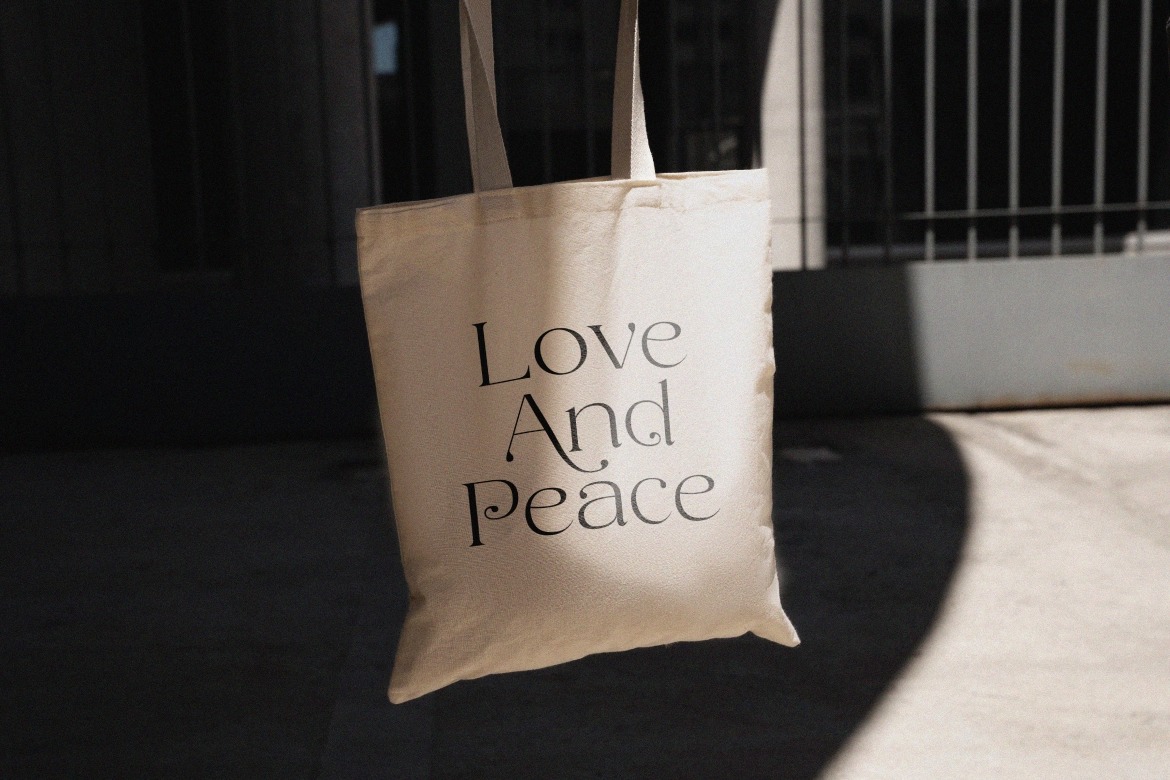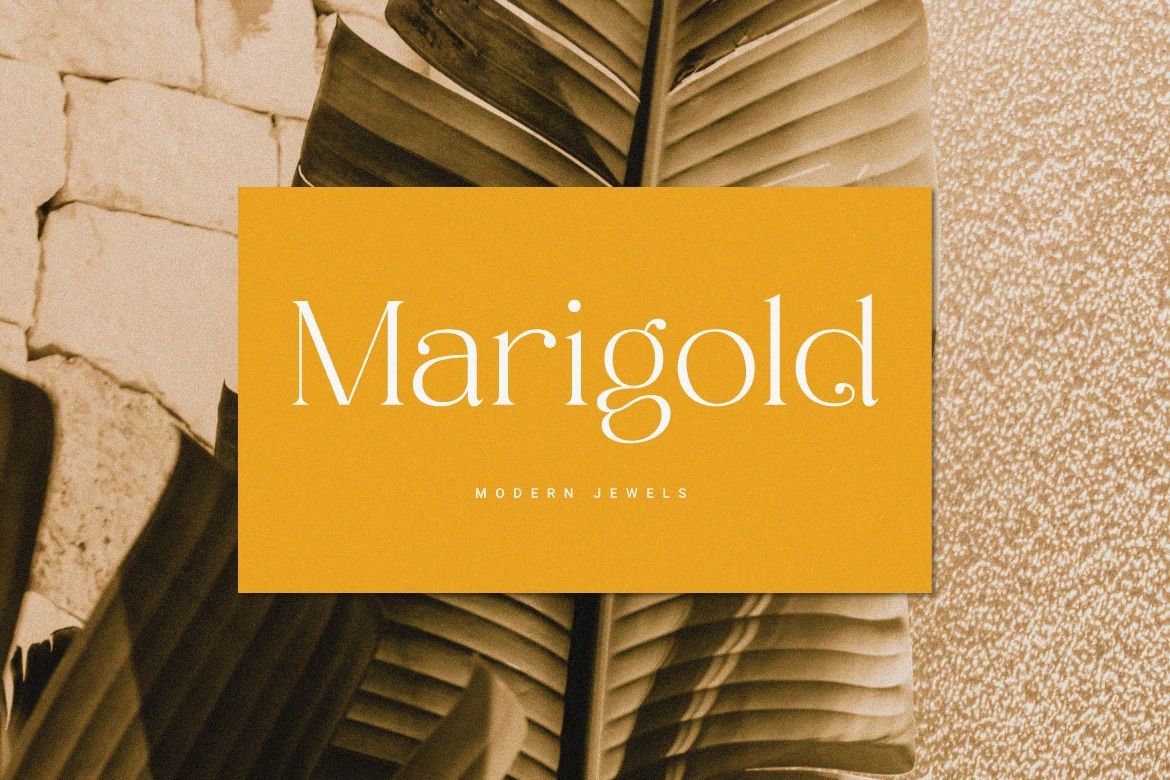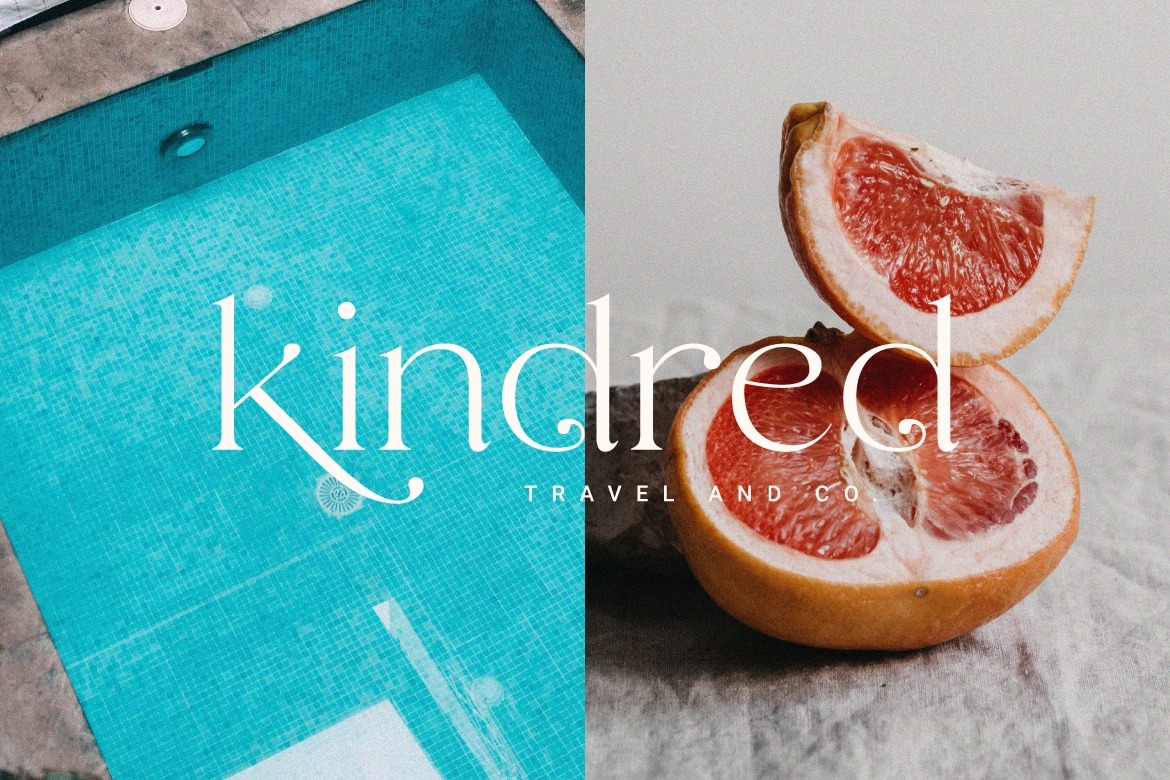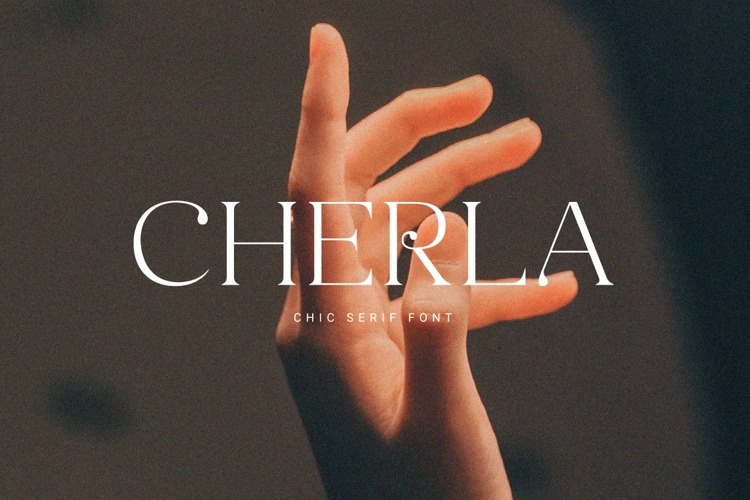
Cherla Serif Font
If you’re looking for a beautifully typeface to attract your audiences or customers then we’ve got the font for you! Cherla is a new serif font manufactured by Prioritype Co. This beautifully timeless serif is the definition of high fashion. Accompanied by several alternative characters to beautify. Suitable for logo design and branding.